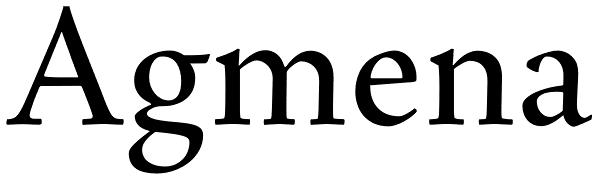
Agmena
Created by Jovica Veljović, the Agmena typeface family is a fine melding of digital technology and beautifully crafted Renaissance fonts. This typeface makes skillful use of proportion, form and spacing rather in the way that a practiced storyteller...